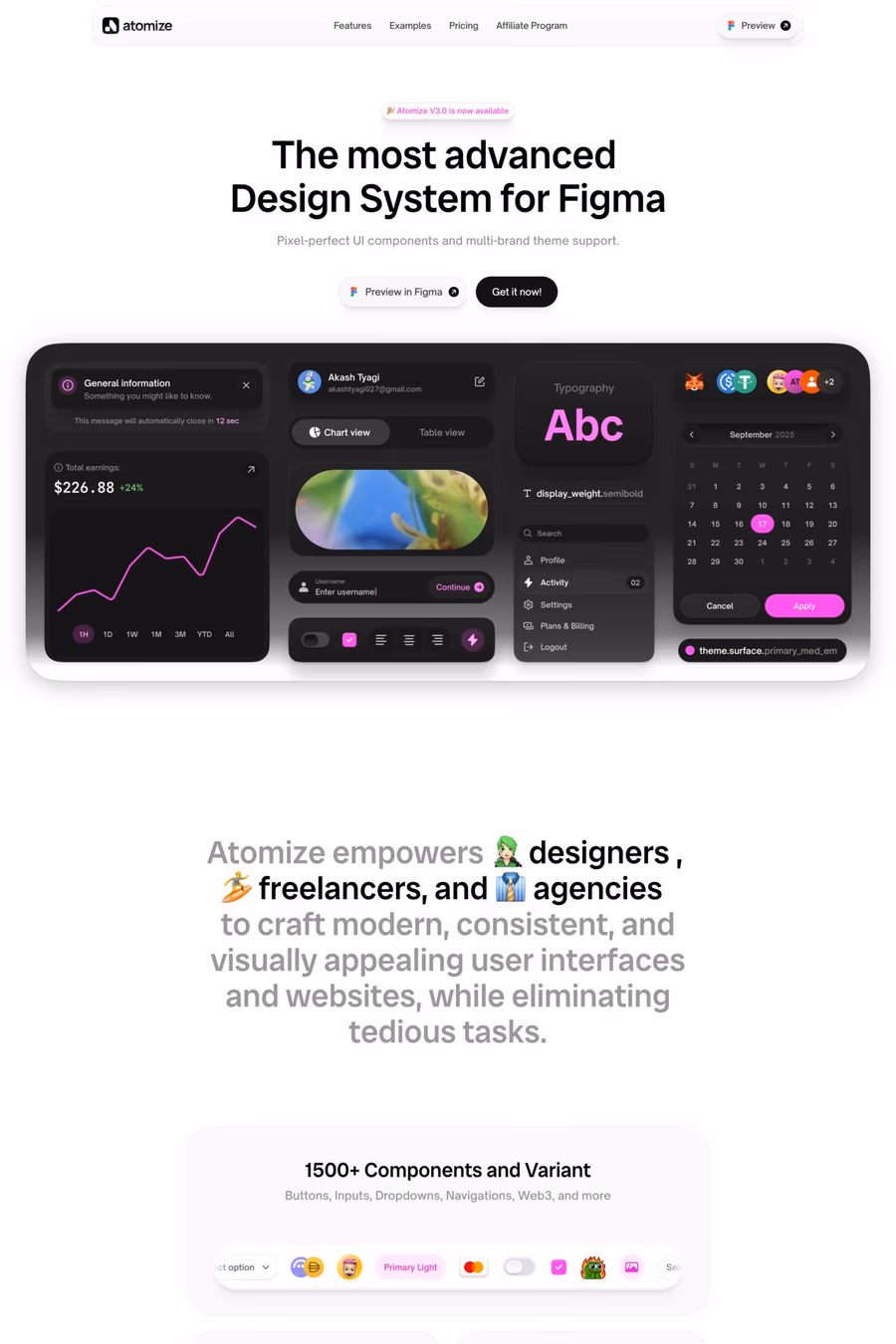
Open Sauce Fonts is a font super family that I developed for Creative Sauce’s internal type system. It is a compact typeface that is optimised for better viewing small text on screen and print. Open Sauce fonts (Sans, One and Two) are under the SIL Open Font License and is going to be actively developed, improved and tested.